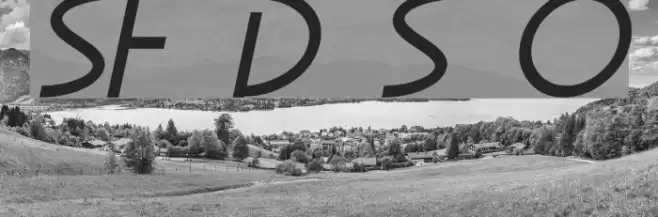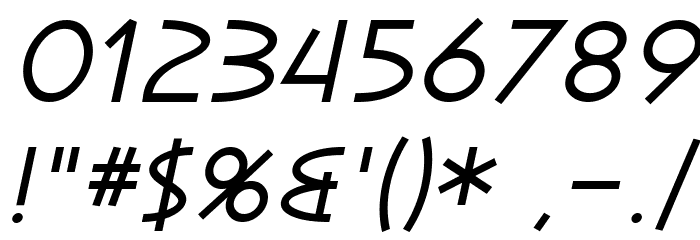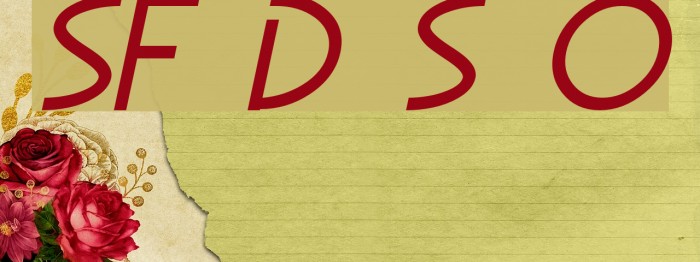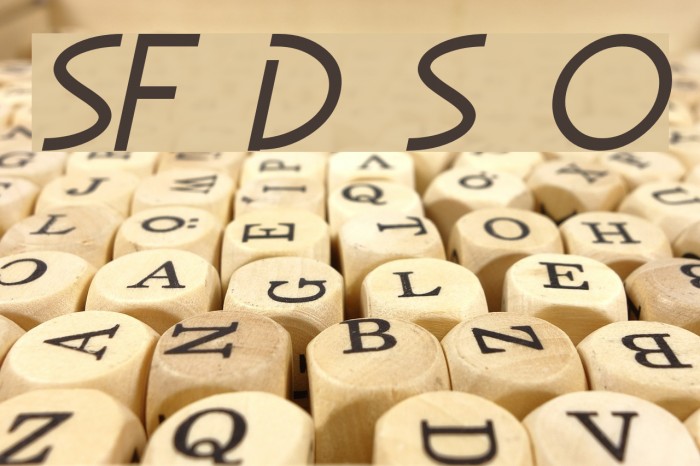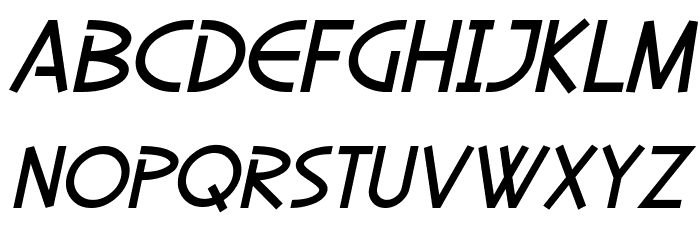
SF Diego Sans Oblique Font
SF Diego Sans Oblique Description
This font features a sleek and modern sans-serif design with an oblique style, giving it a dynamic and forward-leaning appearance. The characters are clean and geometric, with consistent stroke widths that provide a uniform look. The oblique angle adds a sense of motion and energy, making it suitable for contemporary designs. The numerals and special characters maintain the same stylistic approach, ensuring cohesion across all elements.
A modern, oblique sans-serif font with a dynamic and sleek appearance from Sans Serif fonts.
- Proposed Projects: Ideal for branding, advertising, and digital media projects that require a modern and energetic feel.
- Use Case: Headlines, Logos, Digital media